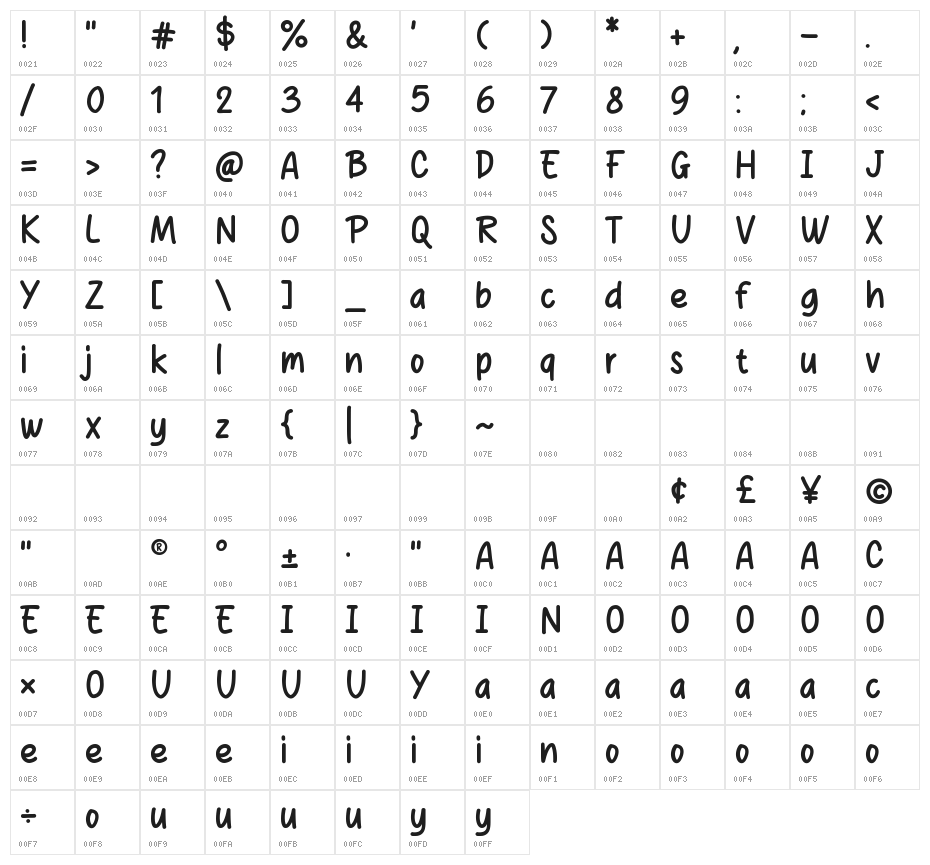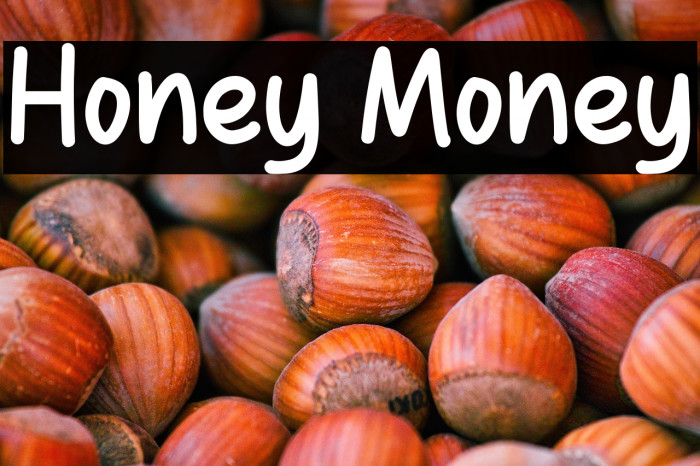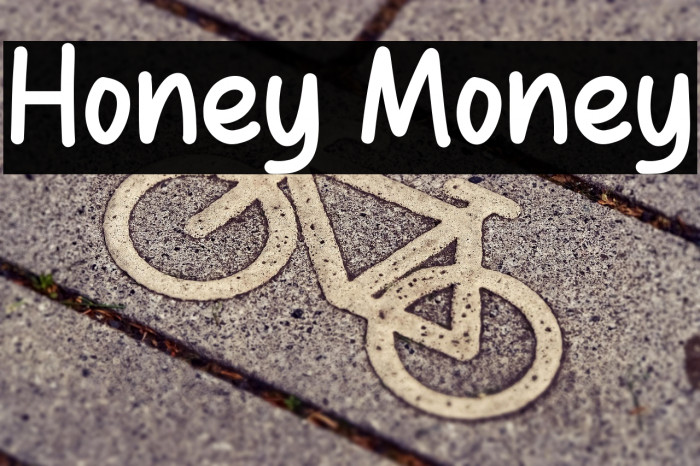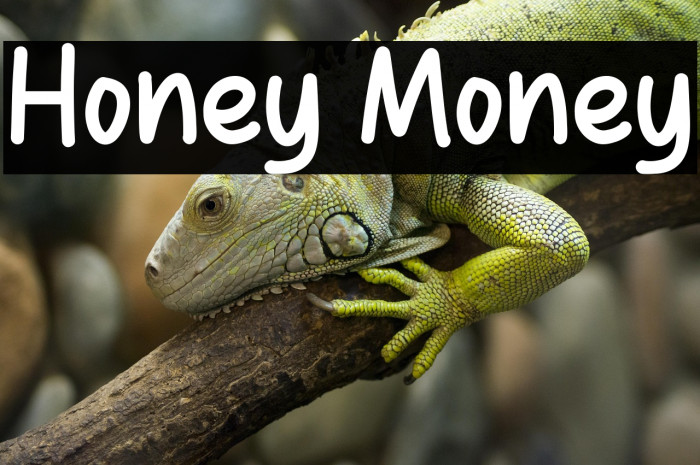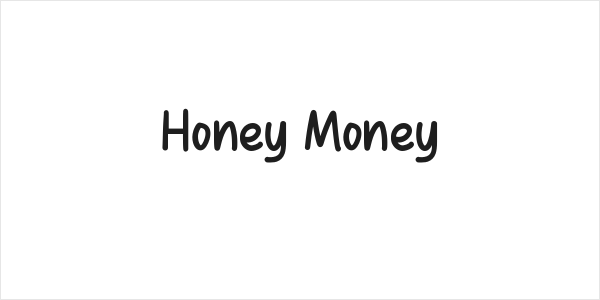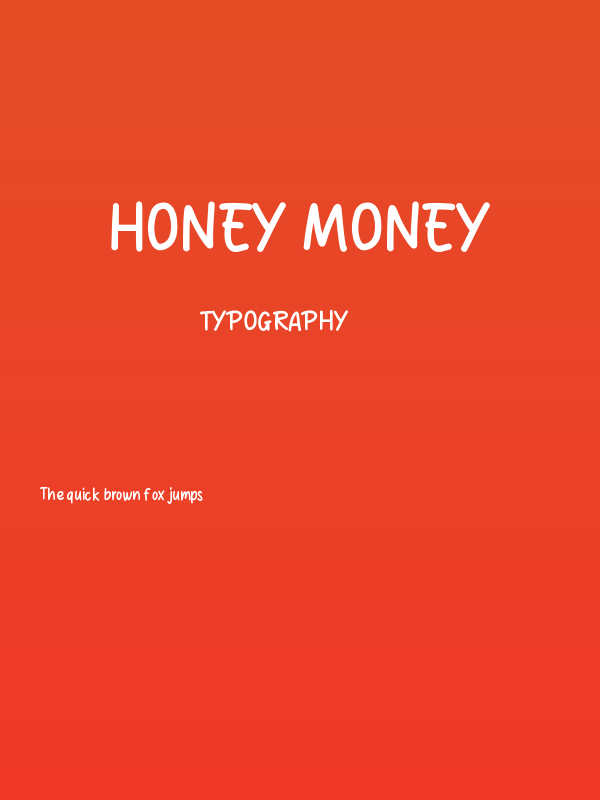
Honey Money Font
Honey Money Description
This playful and rounded font exudes a friendly and approachable vibe, making it ideal for casual and informal designs. The characters are bold and slightly irregular, giving them a hand-drawn appearance that adds a personal touch. The font maintains a consistent stroke width, contributing to its legibility and simplicity. Its whimsical style is perfect for projects that aim to convey warmth and creativity. The spacing between characters is moderate, ensuring readability while maintaining its unique style.
| Proposed Projects | Ideal for children's books, greeting cards, playful branding, and casual invitations. |